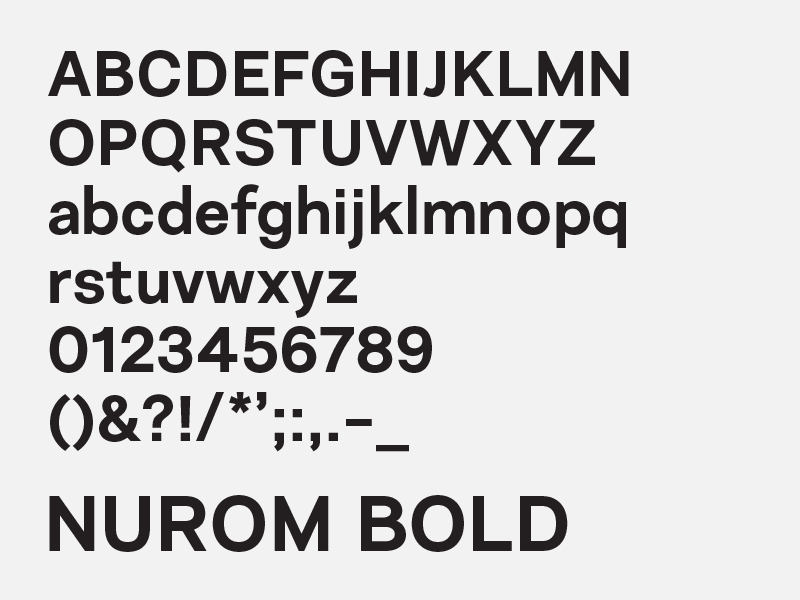
Font name: | Nurom |
Author: | The Northern Block |
Note by The Northern Block | |
Nurom is a contemporary sans-serif typeface influenced by the early grotesque style which is neutral and legible in purpose with a fresh personality. The goal wasn't about historic revival; it was to make a new Grotesk that could compete in an overcrowded market while offering strength, clarity and function across a vast array of applications. Details include six weights (bold free), a regular italic, and over 400 characters per style. Opentype features include decimal figures, fractions, case sensitive punctuation and language support for Western, South, and Central Europe. |